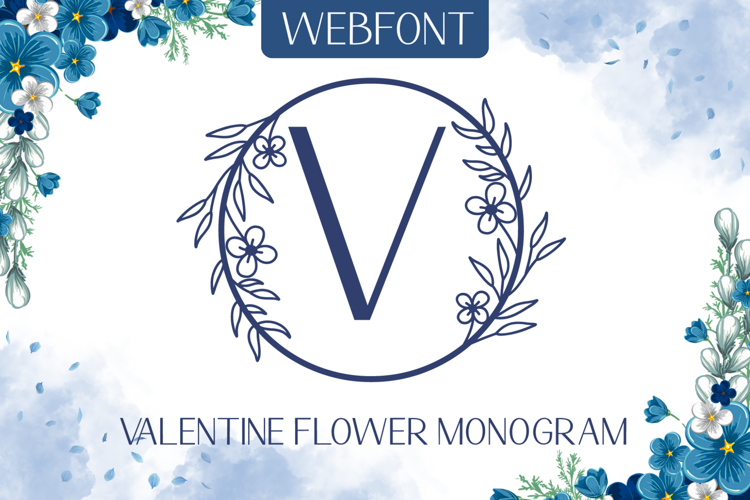
Valentine Flower Monogram
Valentine Flower Monogram is a romantic and charming font designed to celebrate love in every detail. With its elegant monogram style and sweet Valentine vibe, this font is perfect for creating timeless designs filled with warmth and affection. Each letter is carefully crafted to look graceful yet playful, making it ideal for love-themed projects.
This font works beautifully for Valentine cards, wedding invitations, save-the-date designs, couple logos, gift tags, stickers, and crafting projects. Whether you’re designing for romantic events or creating thoughtful gifts, Valentine Monogram adds a special touch that feels heartfelt and memorable.
Perfect for designers and crafters who want to add a lovely and classy monogram style to their designs. Let your creations speak the language of love with Valentine Flower Monogram.
Valentine Flower Monogram Features :
- Support multilingual; ä ö ü Ä Ö Ü ß ¿ ¡
- (a-z) titling, (a-z) swashes, ligatures
- This font is PUA encoded, so you can easily access all playful glyphs, swashes, and ligatures!